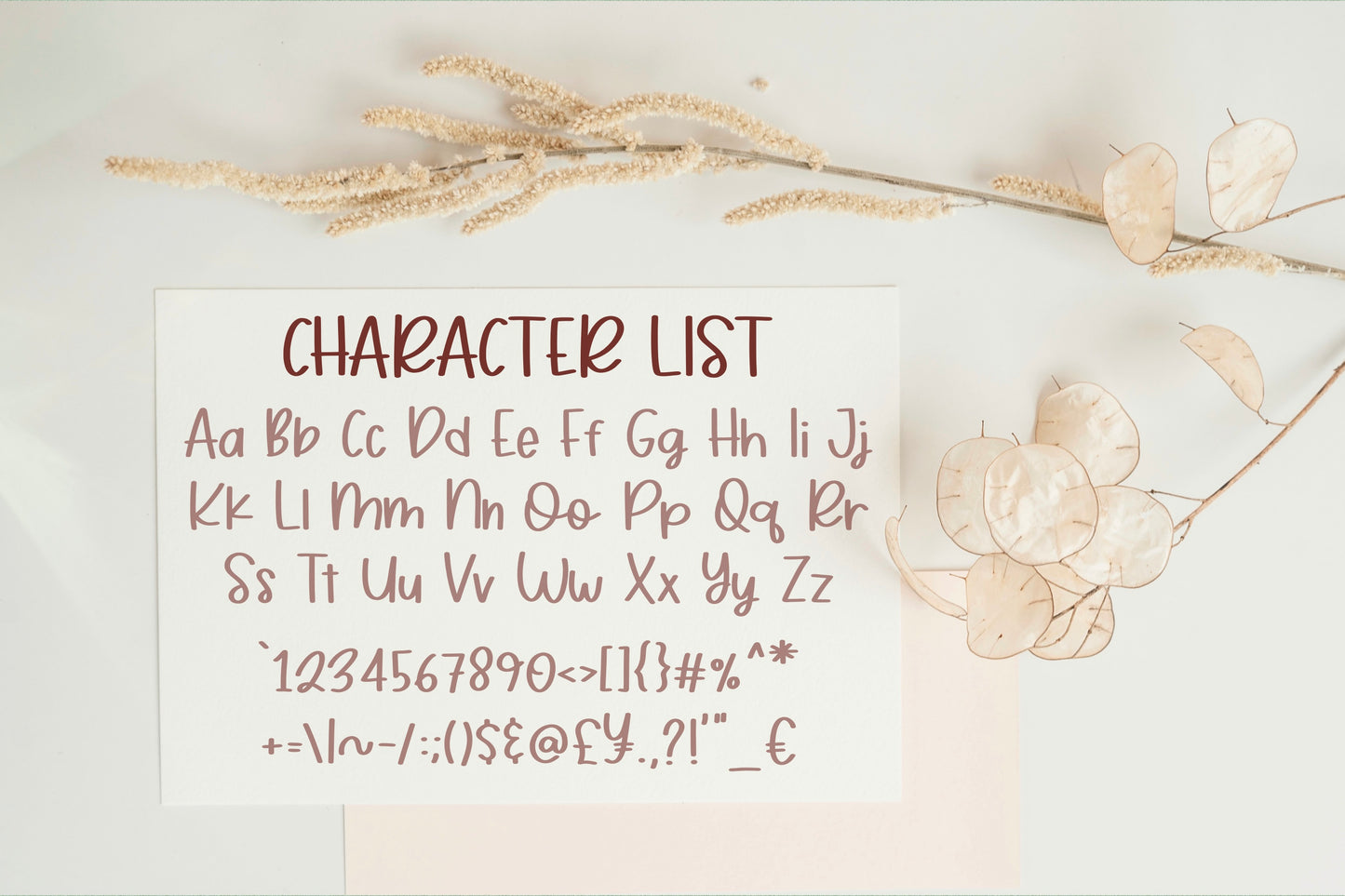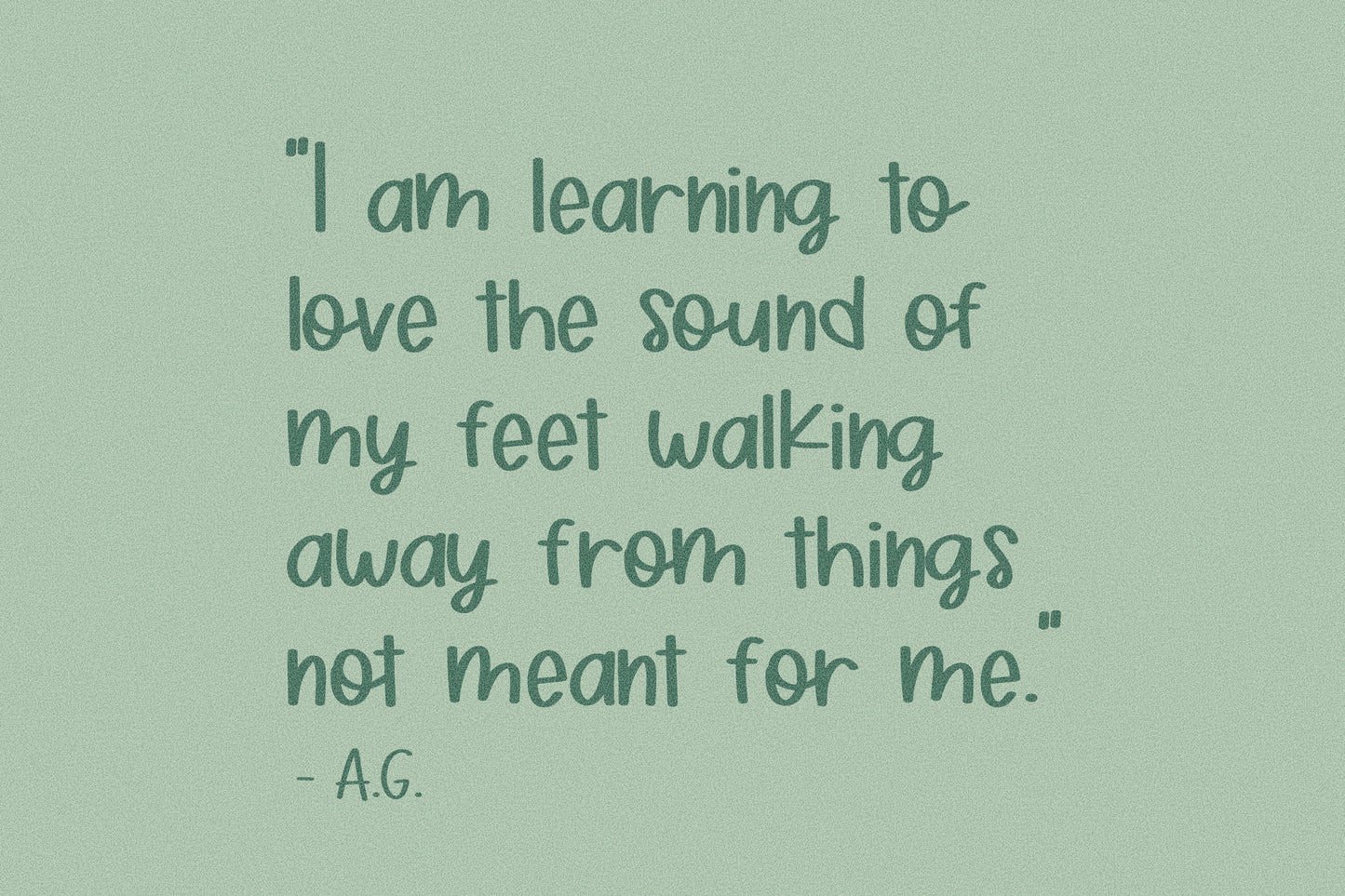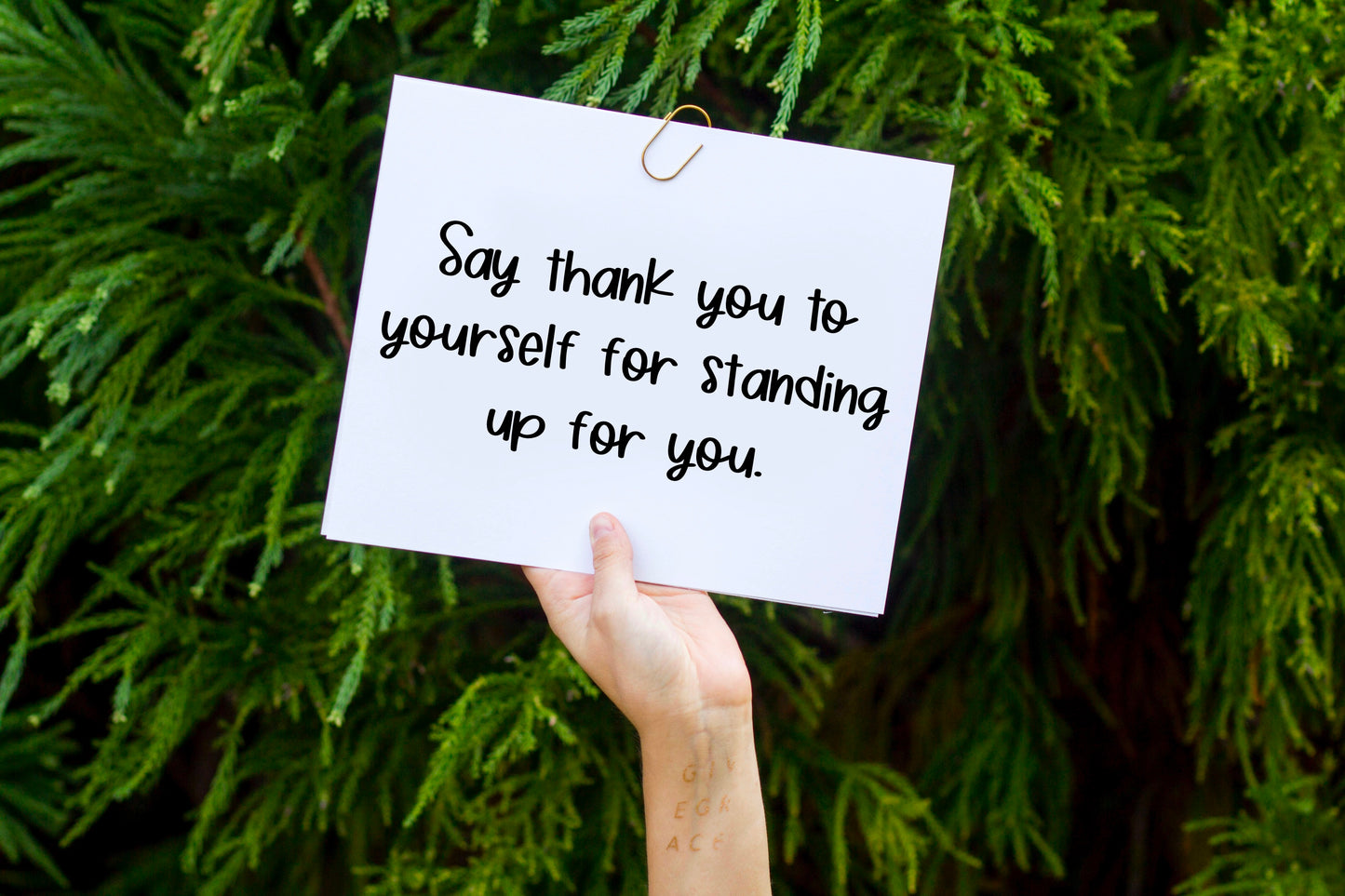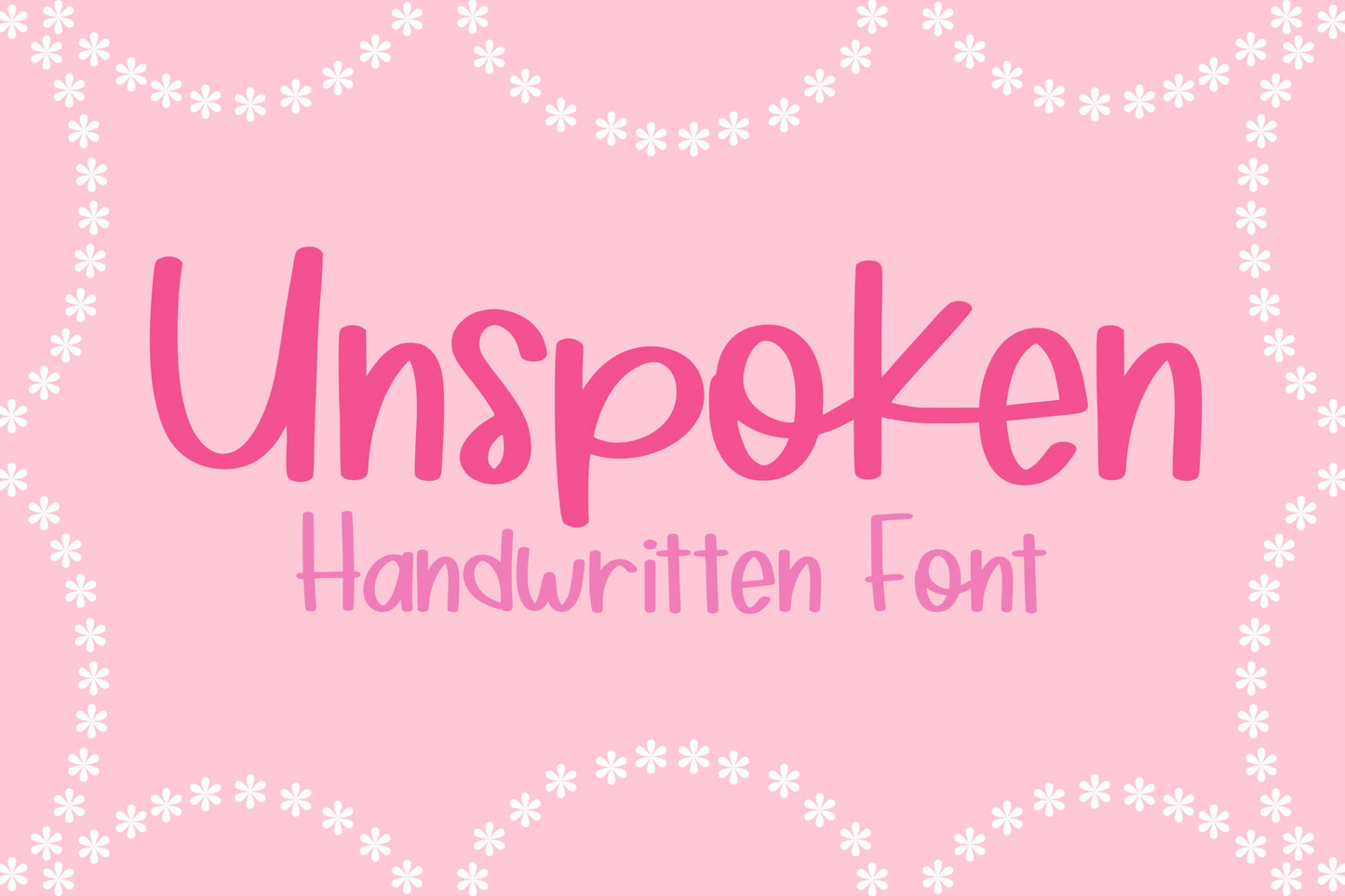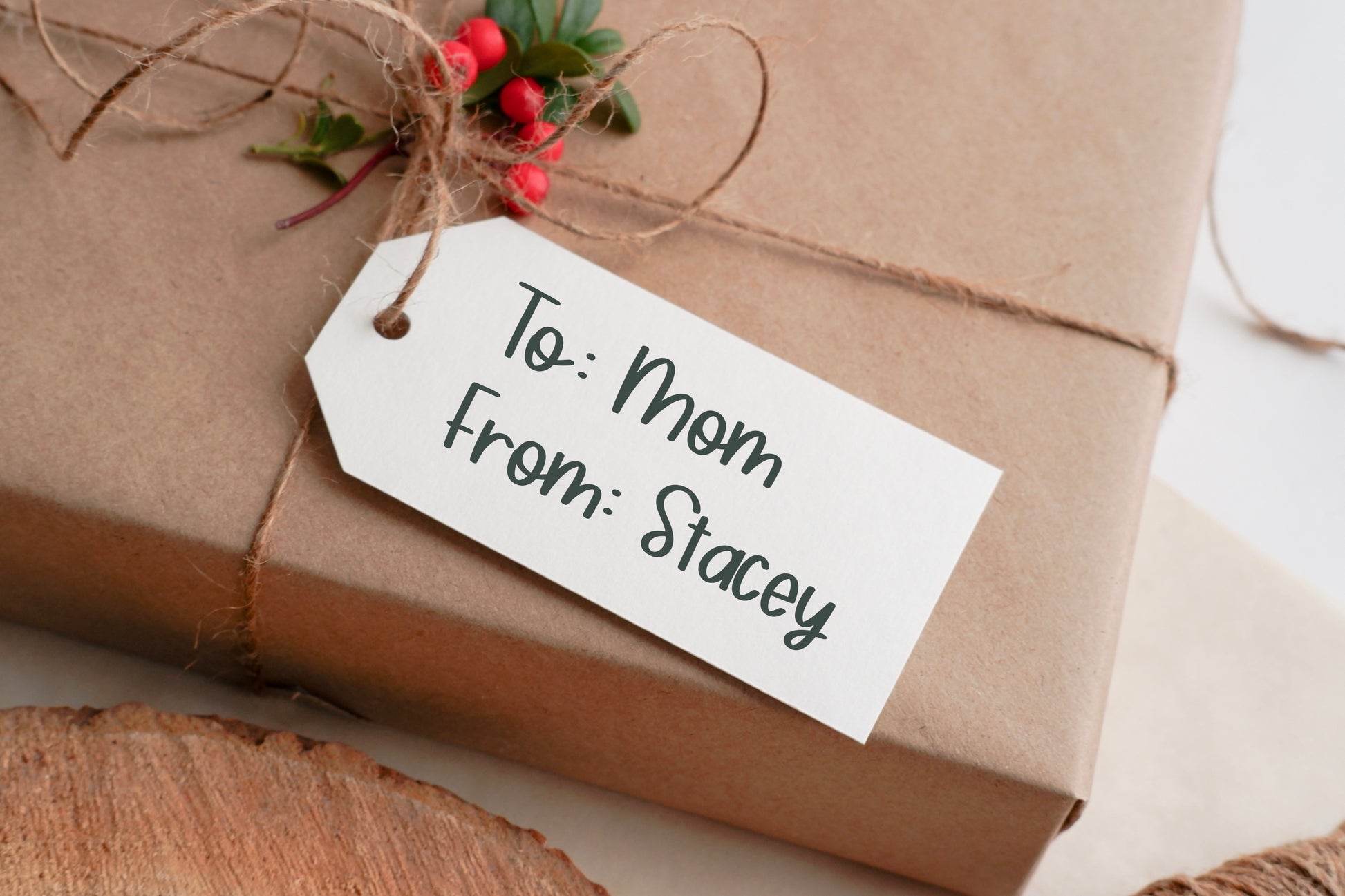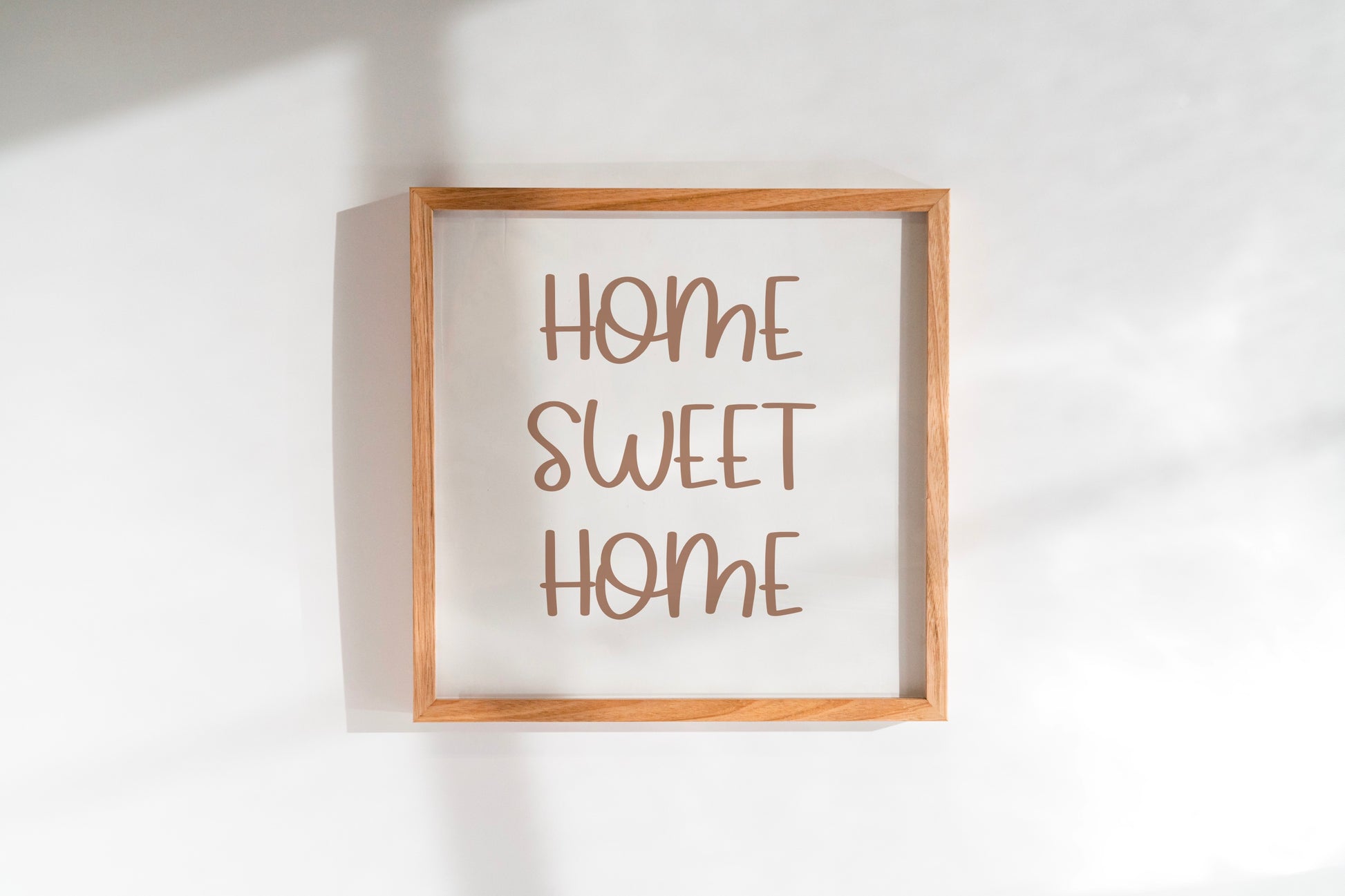
Unspoken Handwritten Font
This is my Unspoken handwritten/hand drawn font. This unique font will add a fun, quirky, handmade touch to your design! Perfect for magazines, stickers, notes, posters, and more!